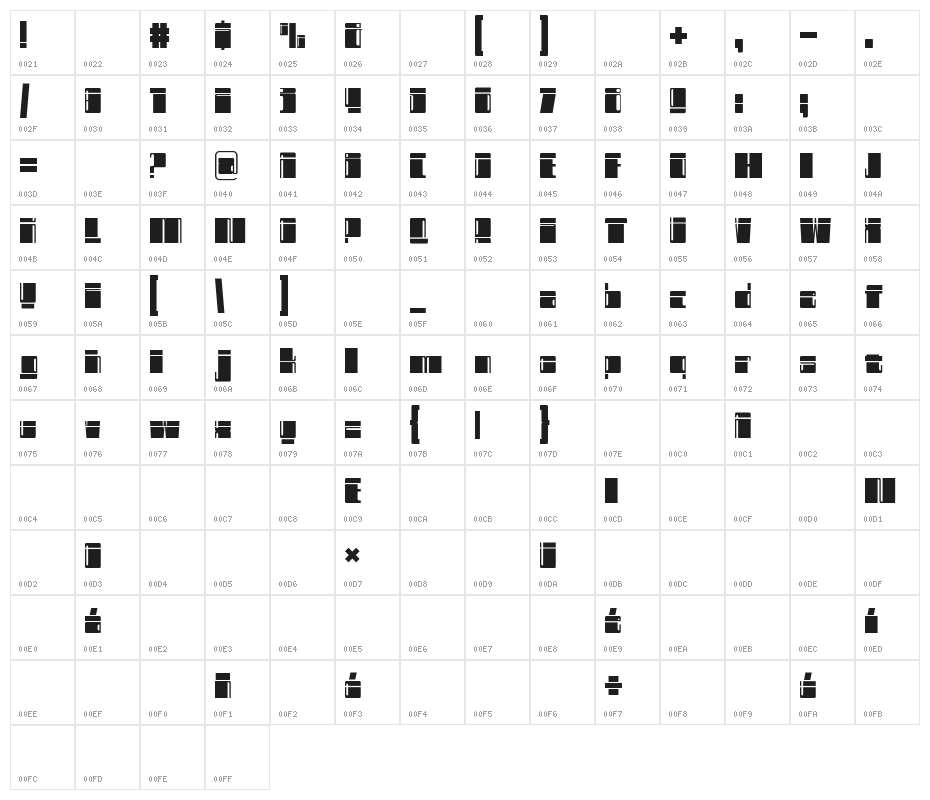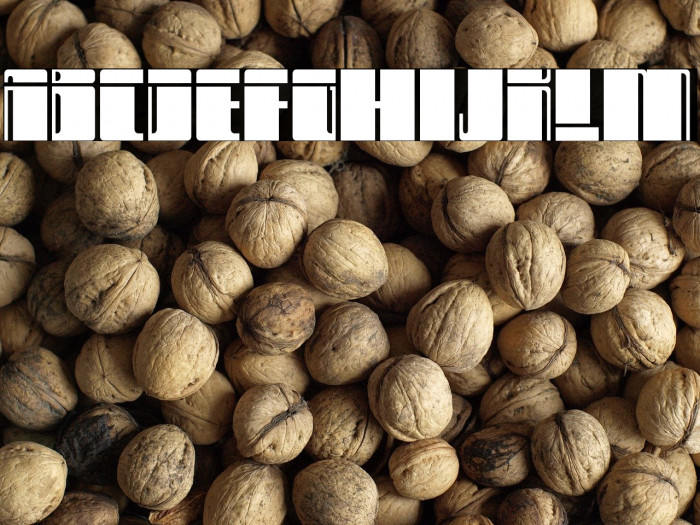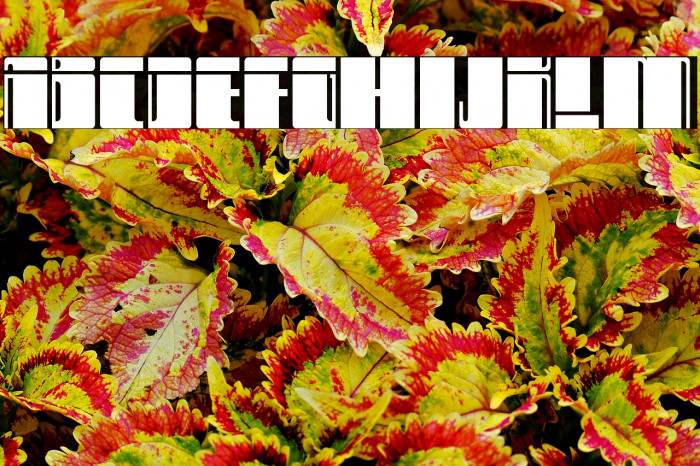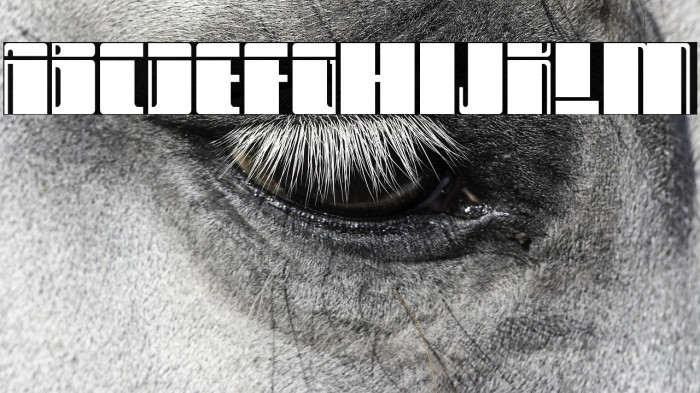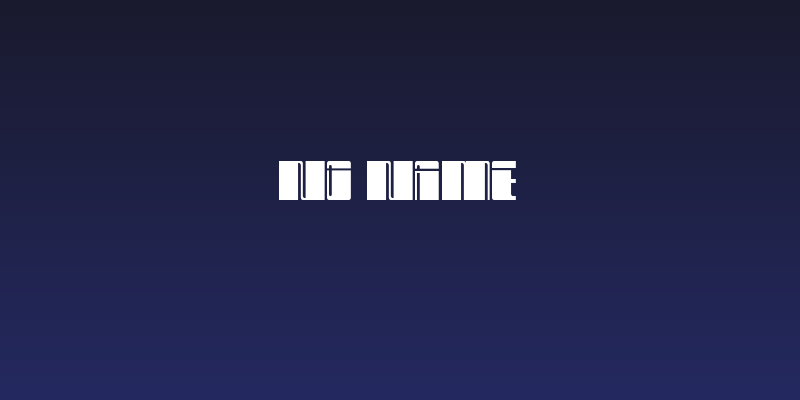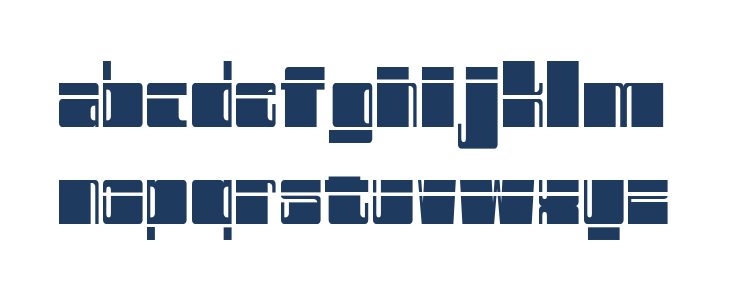
No Name Font
No Name Description
This font features a bold and geometric design with a futuristic and digital aesthetic. The characters are constructed with solid, block-like shapes, creating a strong visual impact. The uppercase and lowercase letters maintain a consistent style, with some characters incorporating unique cutouts and angles that add to the modern feel. The numbers and special characters follow the same design principles, ensuring uniformity across the font. The overall appearance is striking and suitable for projects that require a contemporary and edgy look.
| Proposed Projects | Ideal for tech-related branding, digital art, video game design, and modern posters. |